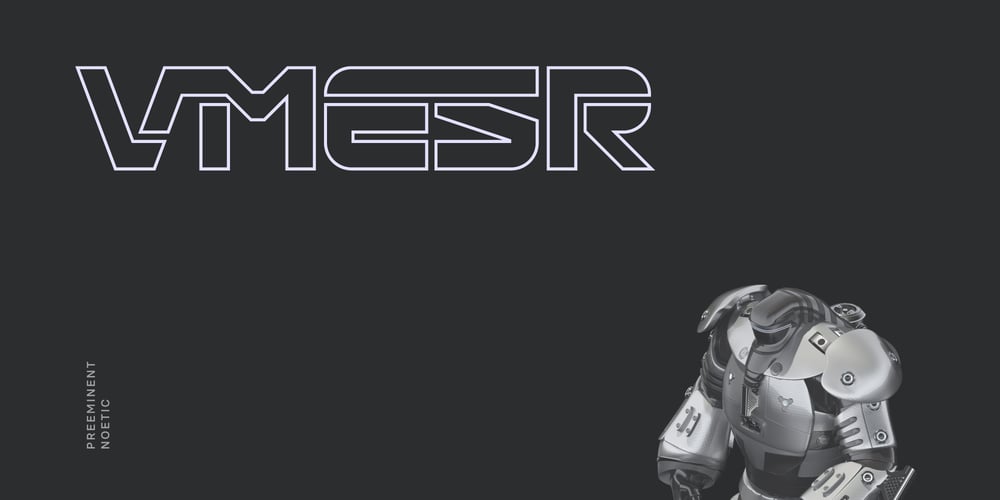
Vmesr
Vmesr font
Vmesr Font Family was designed by Andrew Seah and published by Baqoos. Vmesr contains 2 styles and family package options. Boktto is a preeminent noetic tech display apt for headline, editorial, branding, packaging, printed materials and typographic applications. 240+ glyphs with ligatures and fractions.